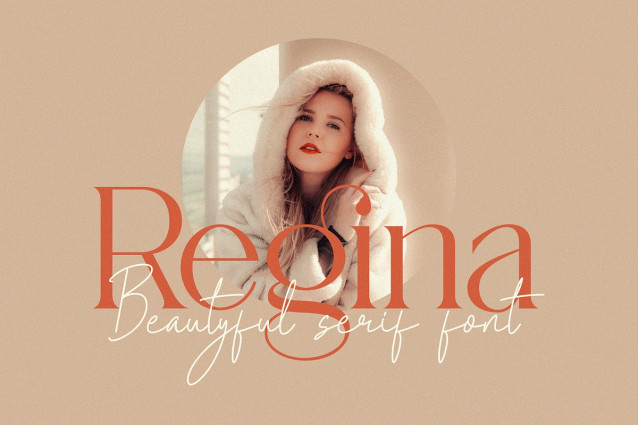
Regina Typeface
Regina Typeface Modern ligature typeface with Unique, Classy and Stylish. Is perfect for branding, logos, invitation, master heads, and more.